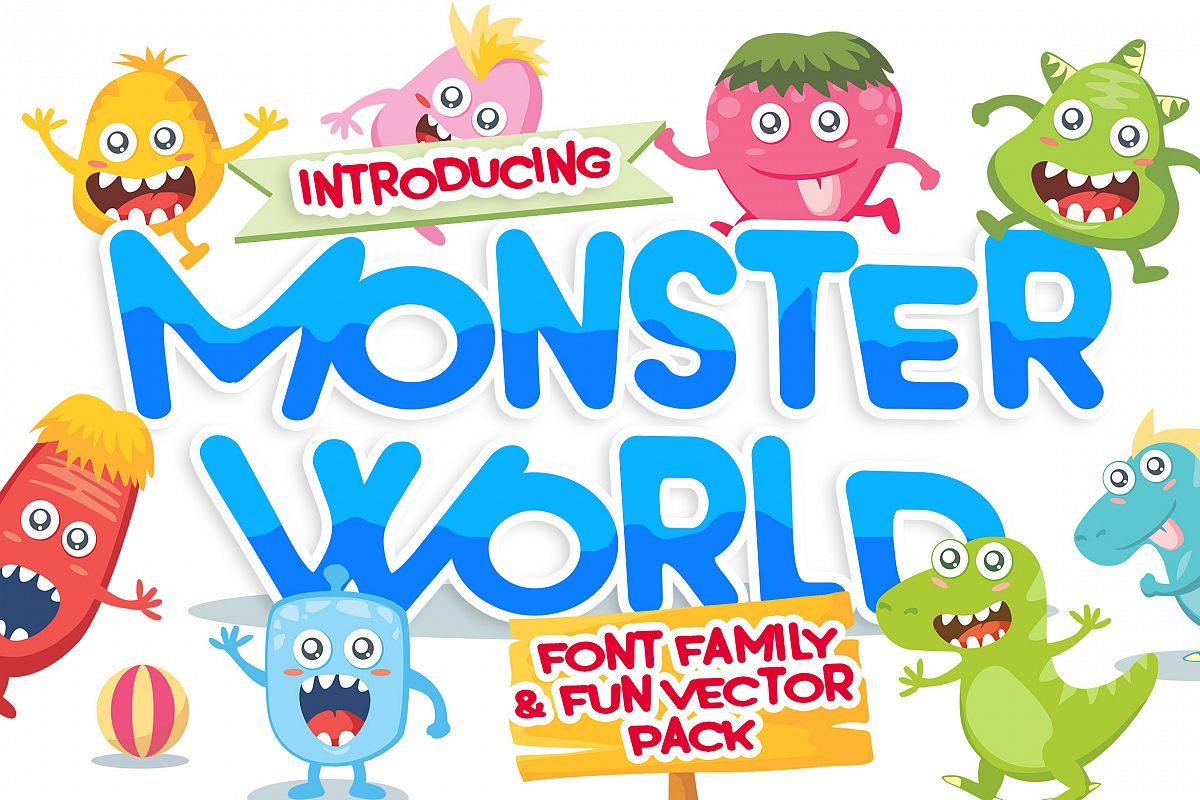
Monster World Font Family & Fun Vector Pack
Monster World Font is unique, fresh and fun font. It comes with 3 styles (light, Bold, and Bounce Bold). Monster world also comes with funny vector pack. You can use this font and the vector for logo, kids clothing, birthday invitation, poster, friendly design, fun design, book cover, adventure poster, outbound poster, and many many many others.